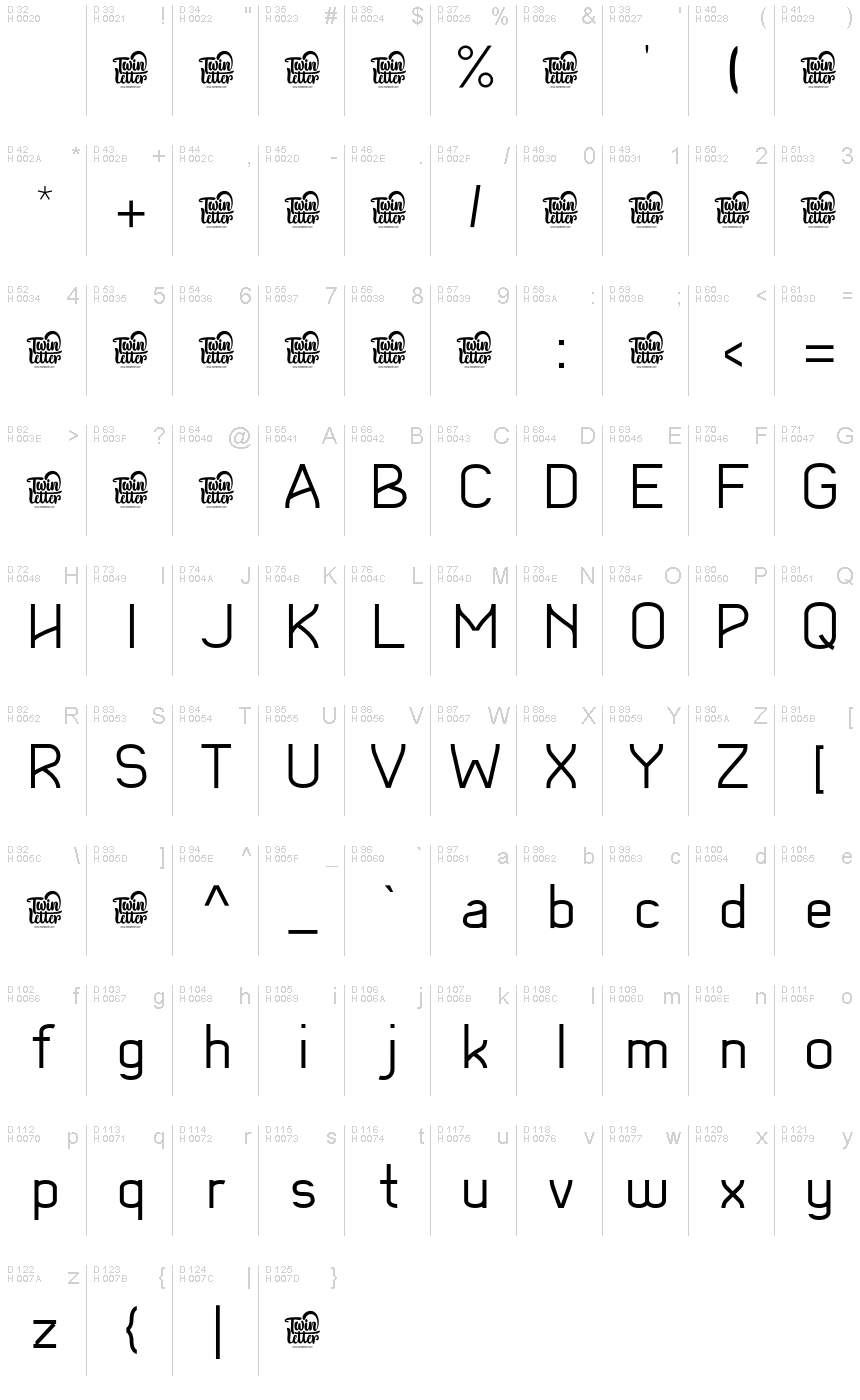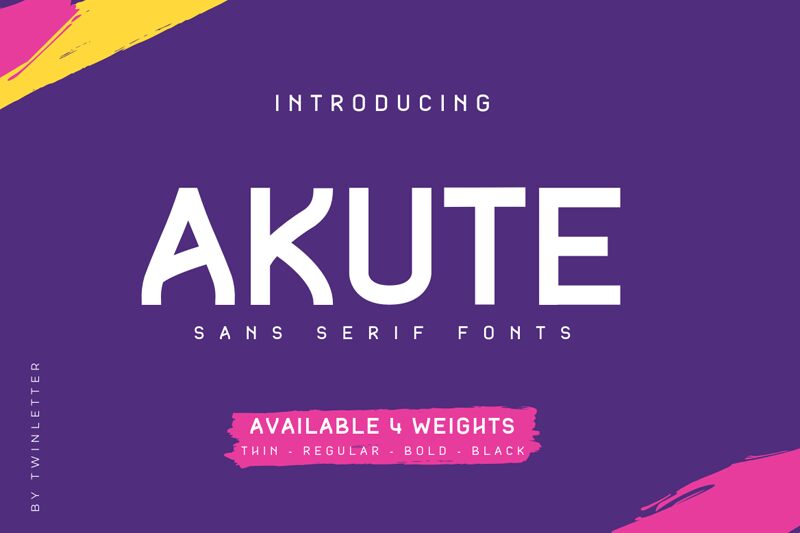
Akute-Thin
Akute Thin font by Twinletter is a modern, geometric, low contrast sans-serif typeface. It features clean lines with balanced proportions that make way for a minimalistic style and approachable mood. Akute Thin falls on the lighter end of the weights in its family and it’s also available as a free font. Experience elegance in every letter and beautiful rounded letters; some of which are close to circular in shape like ‘b’ or ‘c’.